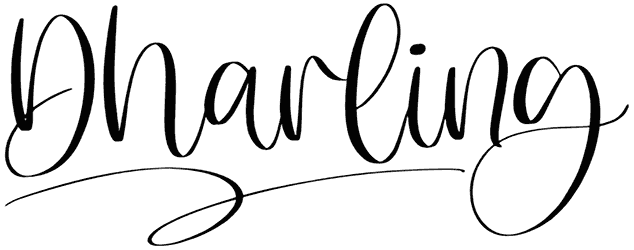
Dharling Font
Forget the flat and plain look, and give in to this stunning handwritten style with a fine, sweet effect. Dharling font is exactly what turned your simple design into engaging elements that truly benefit your overall layout.